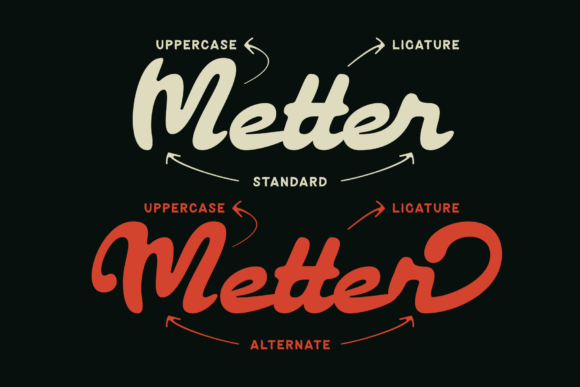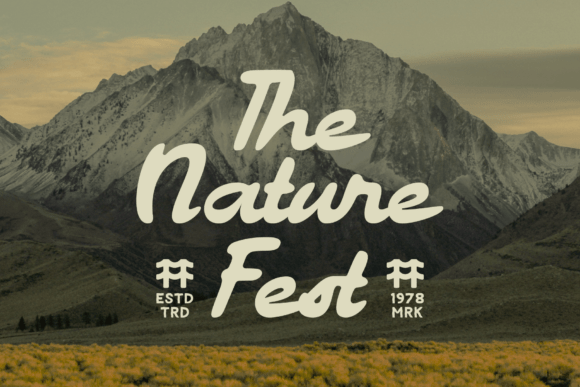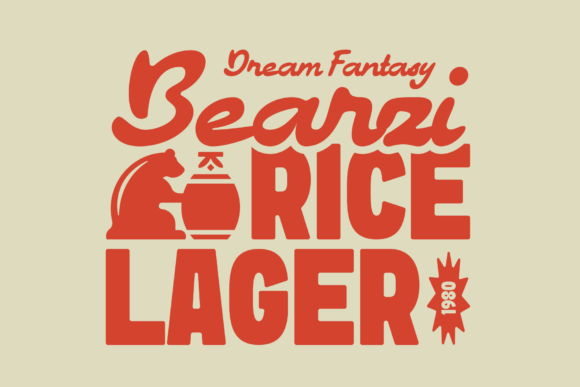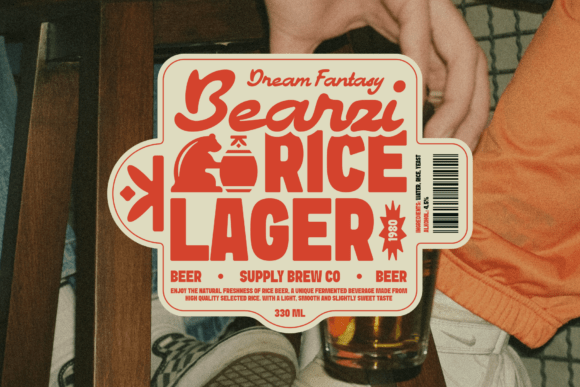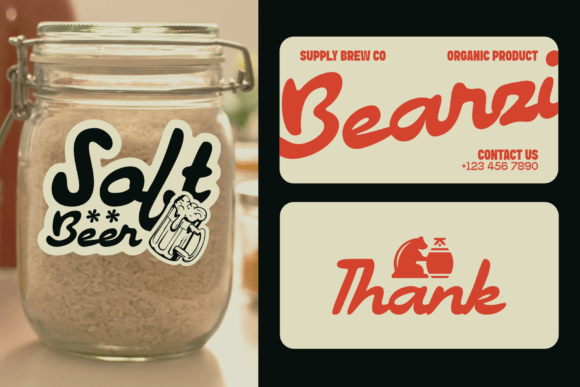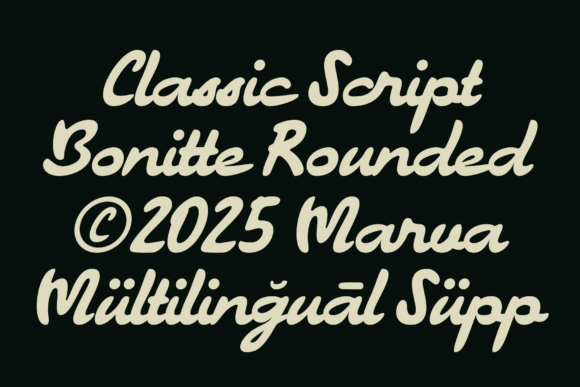
The Quest for the Perfect Script Font: Discovering Bonitte
I’ll never forget the time I was working on a branding project for a small bakery, and I just couldn’t find the right font to capture their warm and friendly vibe. I scrolled through page after page of Google Fonts, tried out dozens of script fonts, but none of them seemed quite right. That was until I stumbled upon Bonitte, a charming and playful classic script font that instantly won me over.
First Impressions: A Beautiful Script Font
Bonitte is a beautiful script font designed by Marvadesign in 2025. Its smooth rounded style evokes a nostalgic and friendly vibe, making it perfect for branding, packaging, logos, or vintage-inspired signage. With over 400 glyphs, including ligatures and alternate characters, Bonitte offers excellent flexibility for various design applications.
So, what do I love about Bonitte? Here are a few things that make it stand out:
- ✨ Handwritten feel: Bonitte has a lovely handwritten feel that makes it perfect for creating personal and approachable designs.
- ✅ Clean curves: The font’s clean curves and smooth lines make it easy to read and visually appealing.
- 🌎 Multilingual support: Bonitte supports multiple languages, making it a great choice for designers who work with international clients.
- 🎨 OpenType features: The font includes a range of OpenType features, such as ligatures and stylistic alternates, that allow for creative experimentation.
And, like any font, it’s not perfect. Here are a few small quirks to keep in mind:
- 🤔 Limited use in very small sizes: While Bonitte is generally clear and readable, it may not be the best choice for very small font sizes (e.g., 8-10pt). In such cases, some of the font’s delicate features may be lost.
- ⚠️ Some characters may require manual kerning: Depending on the design and the specific characters used, some manual kerning may be required to achieve optimal results.
According to Marvadesign, Bonitte was inspired by the classic script fonts of the past, with a modern twist. The designer wanted to create a font that was both elegant and approachable, with a smooth rounded style that would evoke a sense of nostalgia and friendliness.
| Font Name | Bonitte Font |
| Author | Marvadesign |
| What is Bonitte’s primary use case? | Bonitte is suitable for a wide range of design applications, including branding, packaging, logos, and vintage-inspired signage. |
| Is Bonitte suitable for body text? | While Bonitte is generally clear and readable, it’s best suited for headlines, titles, and short paragraphs. For longer body text, a more traditional serif or sans-serif font might be more suitable. |